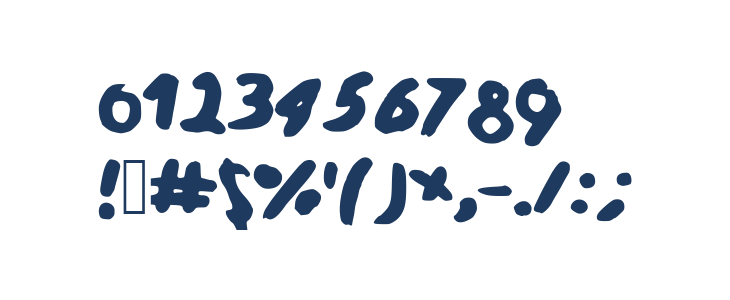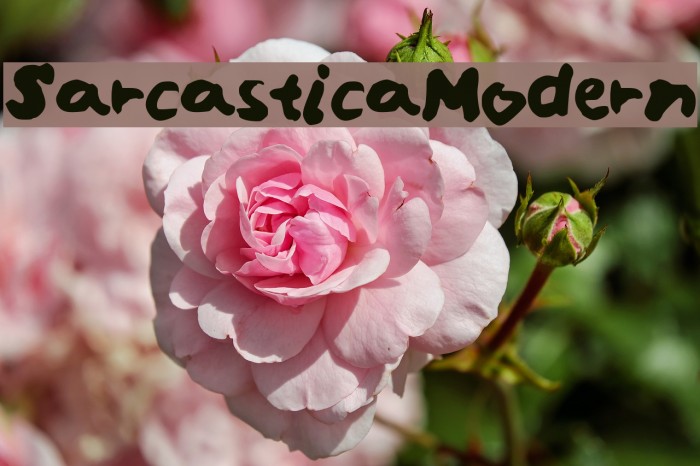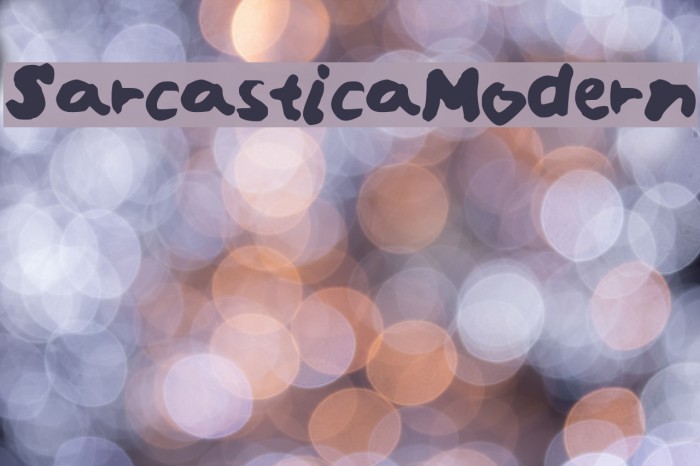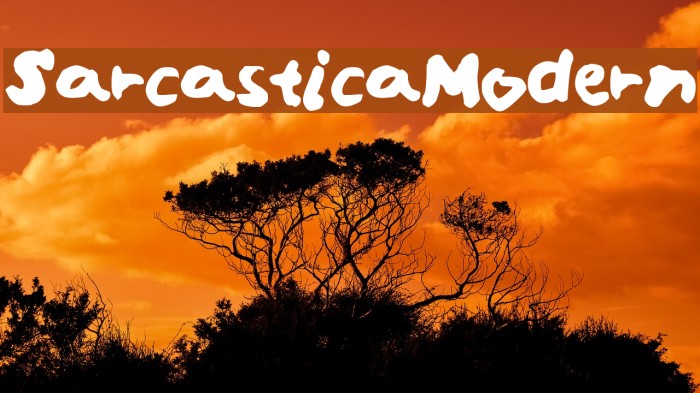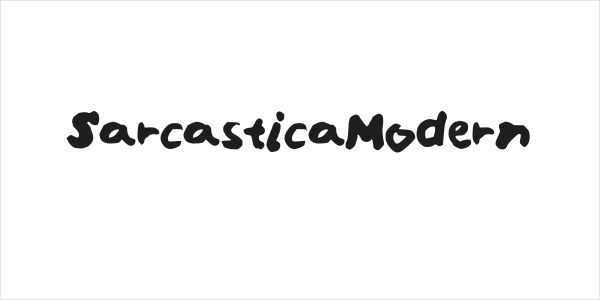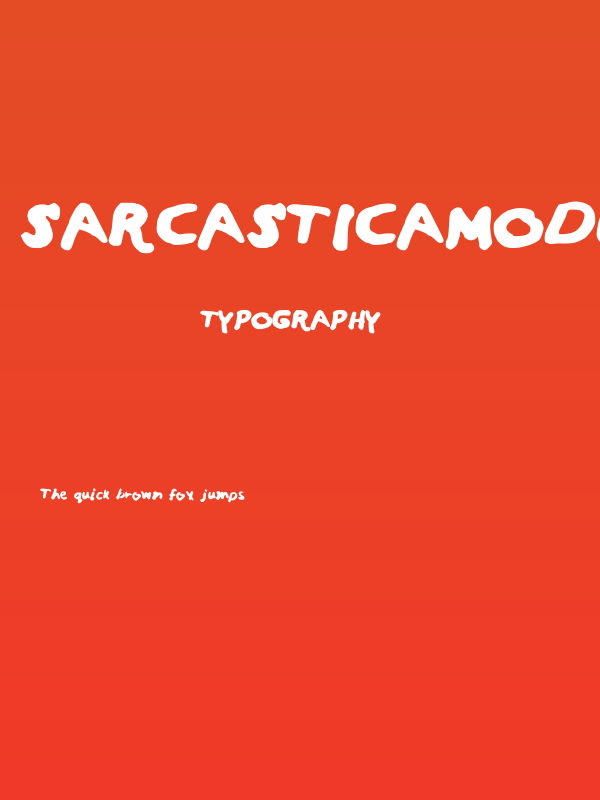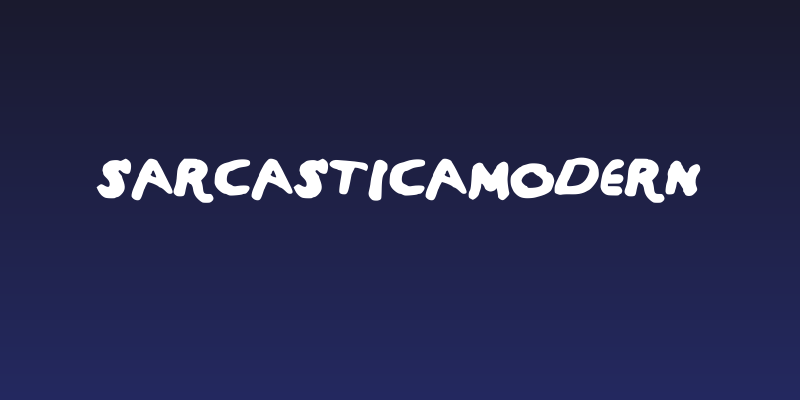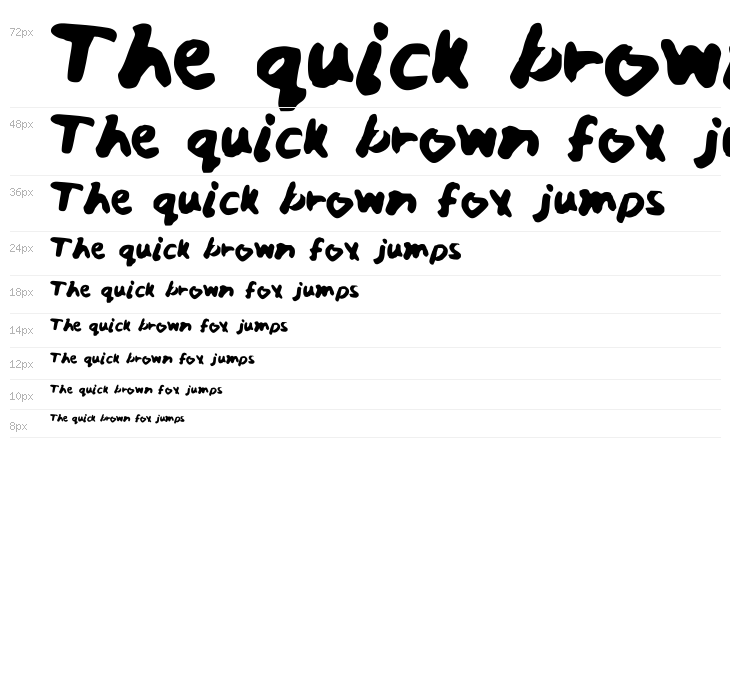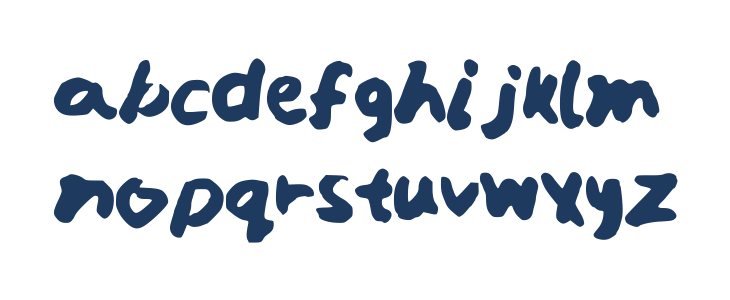
SarcasticaModern Font
SarcasticaModern Description
This font exhibits a playful and bold style with exaggerated curves and a hand-drawn appearance. The characters are thick and rounded, giving them a cartoonish and informal look. The uppercase and lowercase letters maintain a consistent style, with a slightly irregular baseline that adds to the whimsical feel. The numbers and special characters follow the same design principles, ensuring a cohesive appearance across all glyphs. The overall impression is one of fun and creativity, making it suitable for projects that require a casual and lively touch.
| Proposed Projects | Ideal for children's books, comic strips, playful branding, and informal invitations. |